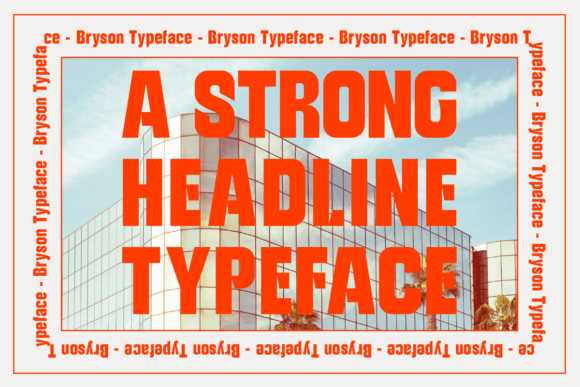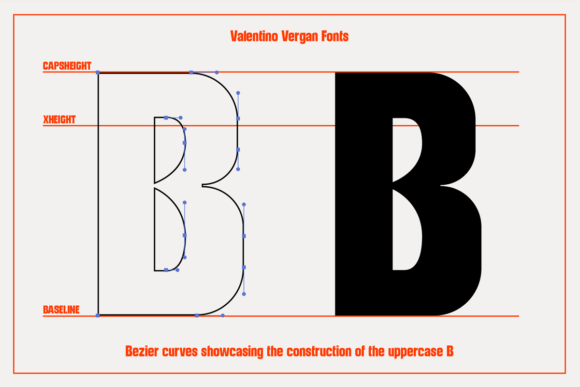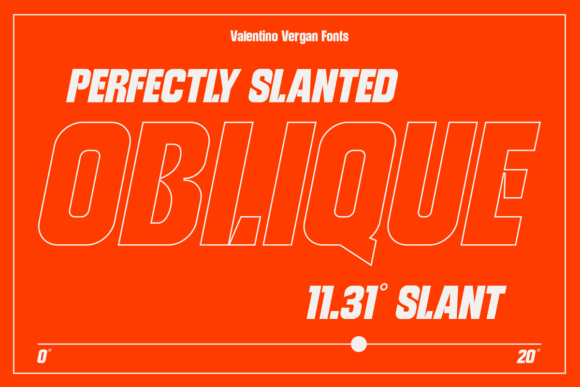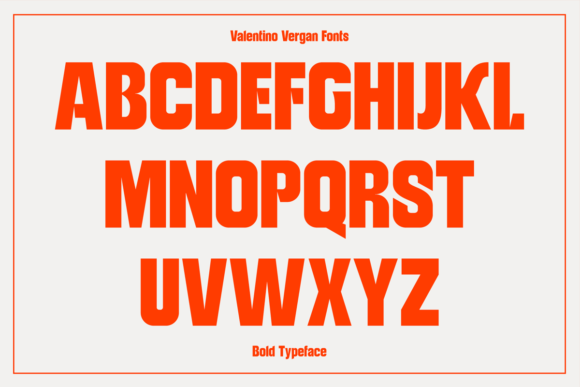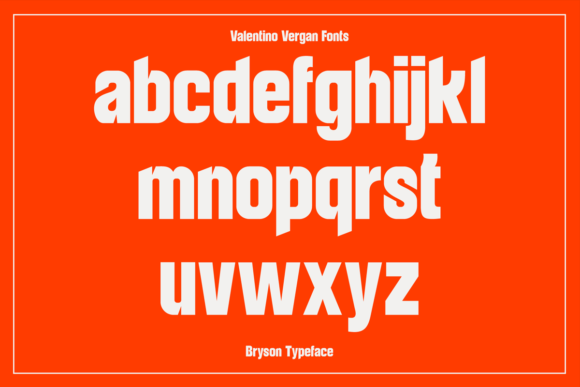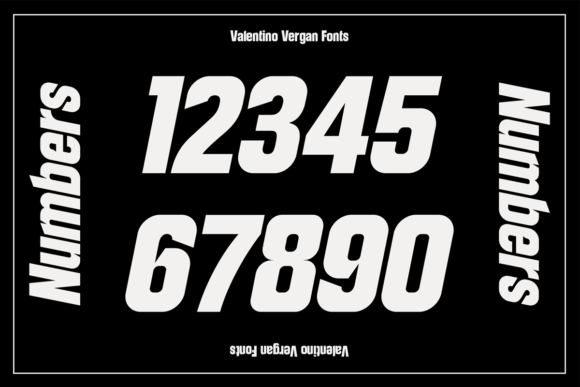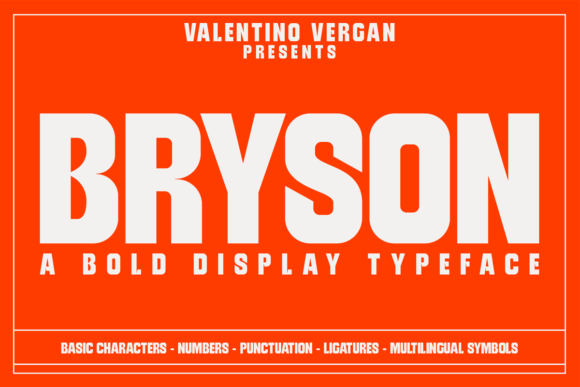
The Perfect Font for Your Next Retro Design Project
Have you ever stumbled upon an old photograph or a vintage advertisement that instantly sparks your creativity? The nostalgic feel and bold typography can be incredibly inspiring. As designers, we’re always on the lookout for the perfect font to capture that same retro vibe in our work. Enter the Bryson Font, a bold sans serif ligature typeface that’s sure to make your designs stand out.
Bryson Font is designed to be eye-catching, with simple yet distinctive shapes that work perfectly for a wide range of projects. Its tight kerning and bold shapes make it ideal for print and web designs, and its versatility is unmatched. Whether you’re working on a logo, a brochure, or a website, the Bryson Font is the perfect addition to your design arsenal.
Bryson Font Key Features
- Font Family: Bryson Font is a sans-serif font family designed for modern and clean typography.
- Character Set: The font family includes a wide range of characters, including Latin, Cyrillic, and Greek alphabets, as well as punctuation and symbols.
- Unique Characteristics: Bryson Font features a distinctive geometric shape, with clean lines and precise angles, giving it a modern and sophisticated look.
Bryson Font Review
I recently had the chance to work with the Bryson font, and I must say, it’s a unique and interesting addition to any design project. Here are my thoughts:
- The Bryson font has a clean and modern aesthetic that’s perfect for digital products and websites.
- It’s highly legible, making it easy to read even in smaller font sizes.
- The font’s rounded edges and subtle curves give it a friendly and approachable feel.
- Bryson font supports a wide range of languages, making it a great choice for international projects.
- The font’s irregularities can make it difficult to use for body text, especially in long paragraphs.
- The font’s unique style may not be suitable for all design projects, particularly those that require a more formal or traditional look.
- The font’s spacing and kerning can be inconsistent, which may affect the overall readability.
While the Bryson font has its limitations, I think it’s a great choice for designers who want to add a touch of personality to their projects. It’s perfect for creative industries, startups, or any project that requires a modern and friendly vibe. However, it may not be the best fit for more formal or traditional projects. Overall, I’d give the Bryson font 3.5 out of 5 stars.
Bryson Font is ideal for:
- Creating modern and sleek designs.
- Adding a touch of sophistication to your branding.
- Highlighting important information or headings.
For optimal results, use Bryson Font in conjunction with a clean and minimalist design aesthetic.
Merriweather is a classic serif font that’s suitable for body text and titles. It’s highly legible and elegant, making it perfect for print and digital design projects. Compared to Bryson Font, Merriweather has a more traditional and serif look, with a stronger emphasis on classic typography.